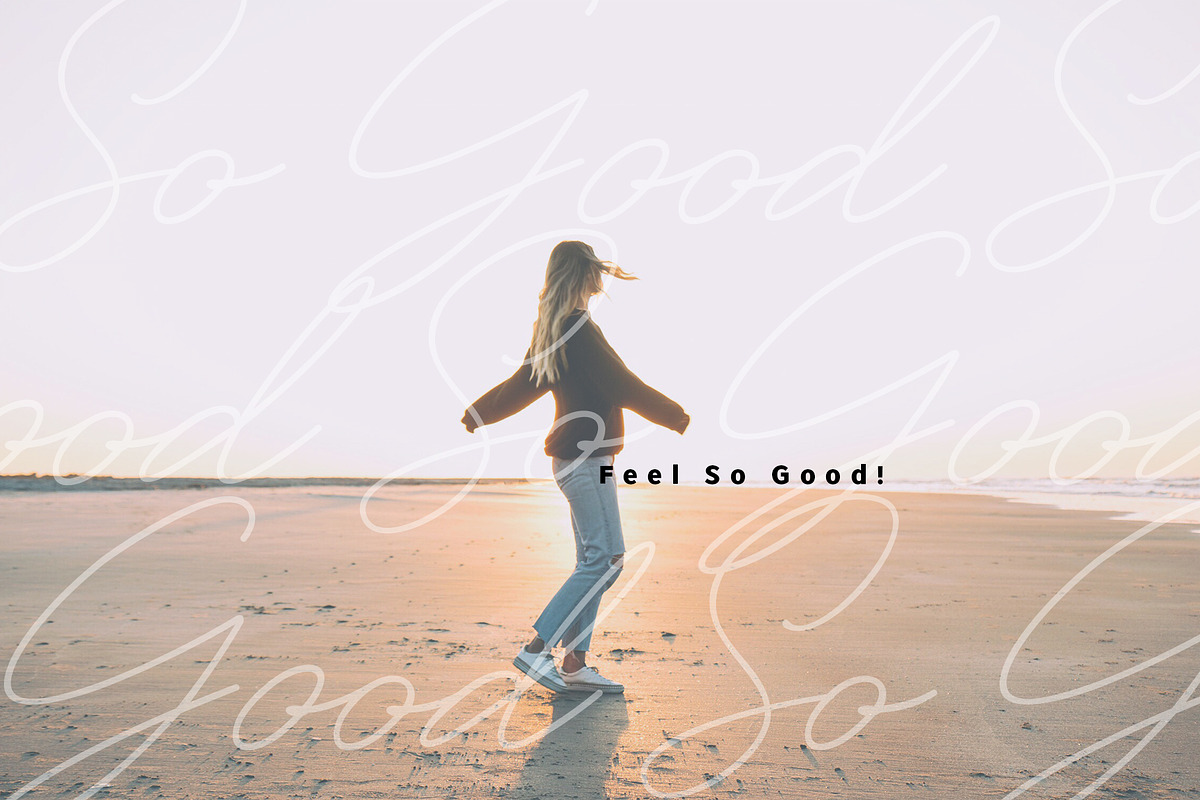
Ms. Jollie Signature
Introduce Ms. Jollie signature font!
This is a new signature font. This font comes with a slant style created with monoline, in this font you will find a style of simple, luxury, and modern.
With a style like this, this font will be suitable in use for logo's, branding projects, homeware designs, product packaging, mugs, quotes, posters, shopping bags, logo's, t-shirts, book covers, name card, invitation cards, greeting cards, and all your other lovely projects.
You can use this font for your job very easily. Because there are many features in it. Contains the complete set of lower and uppercase letters, punctuation, numbers, web fonts, and multilingual support. This font also includes several ligatures and alternative style Stylistic Set For those of you who have software that is capable of working OpenType (Corel Draw / Photoshop / Illustrator / InDesign).